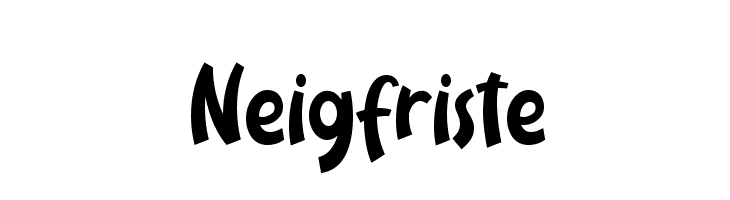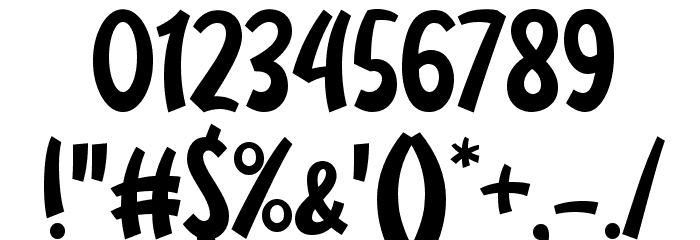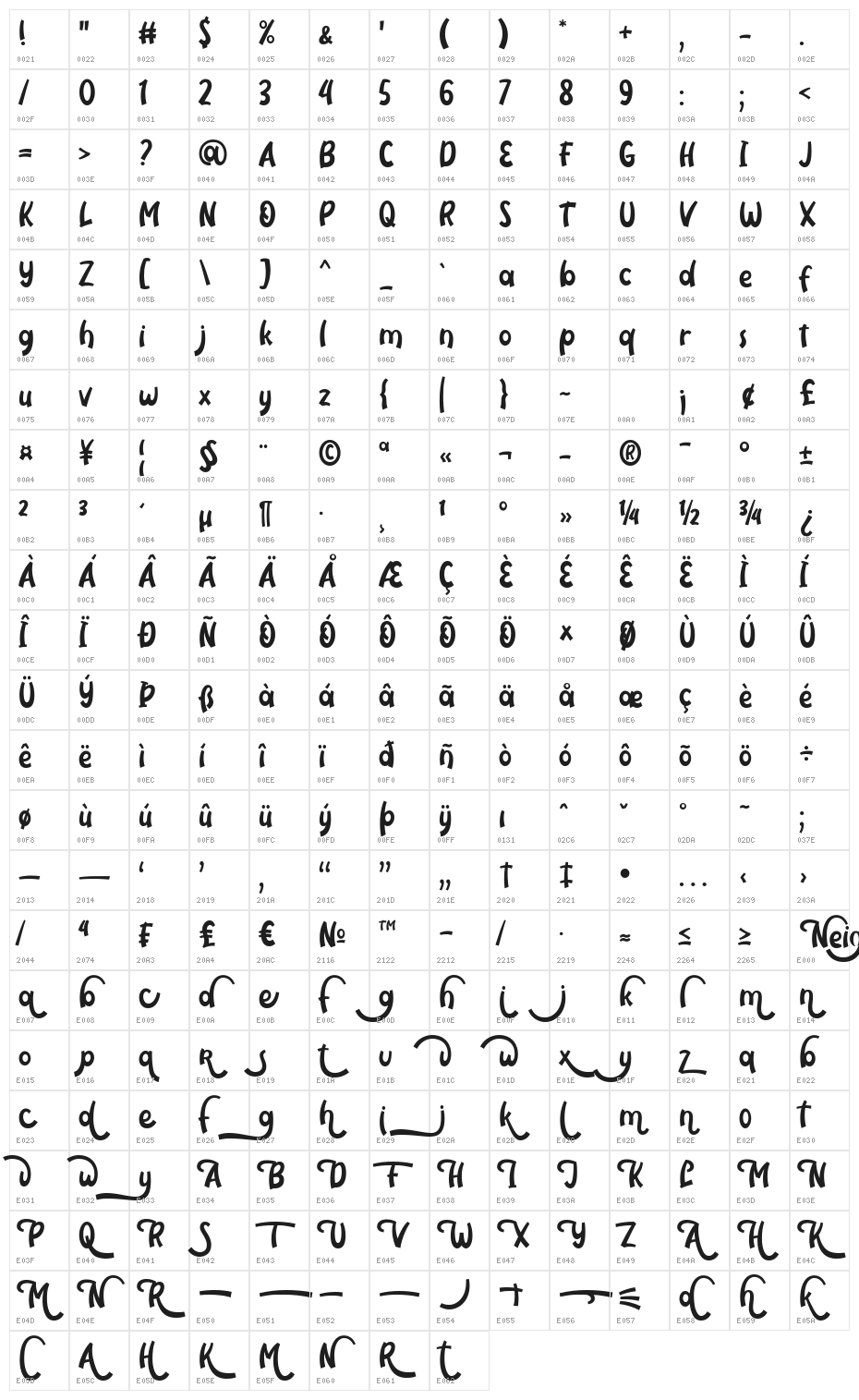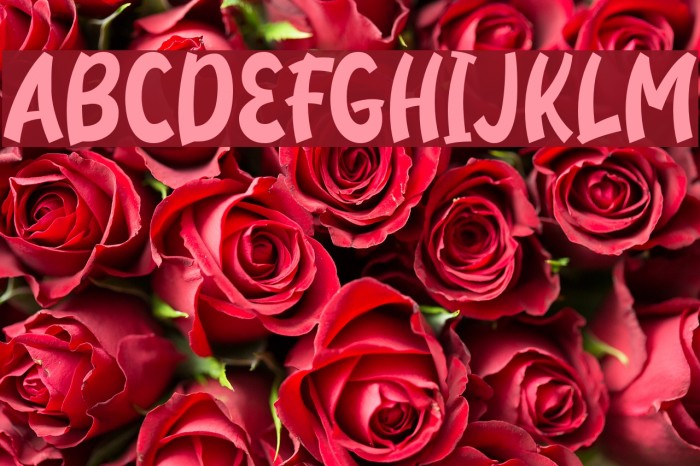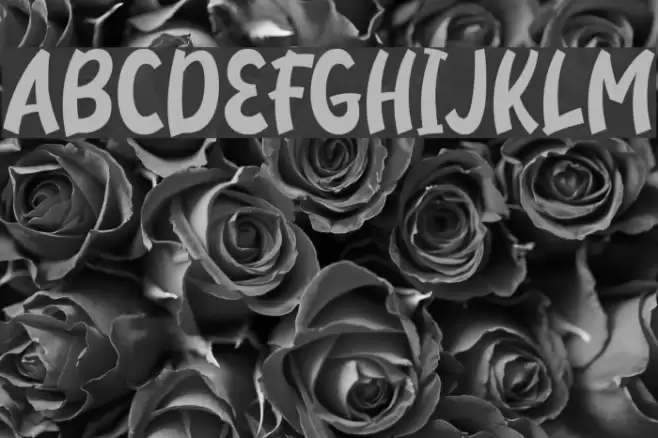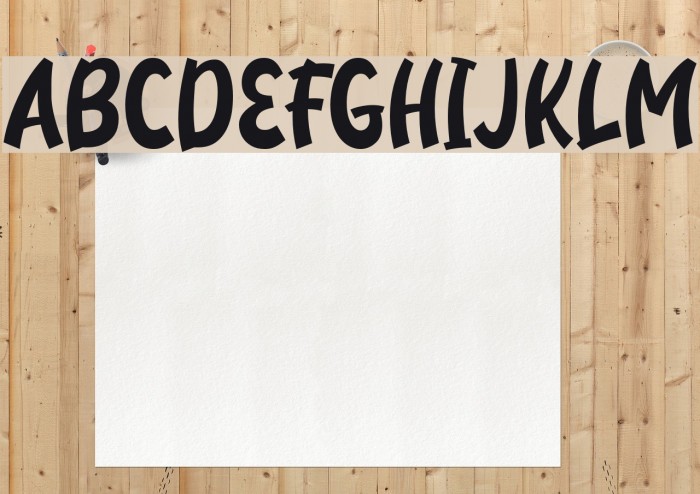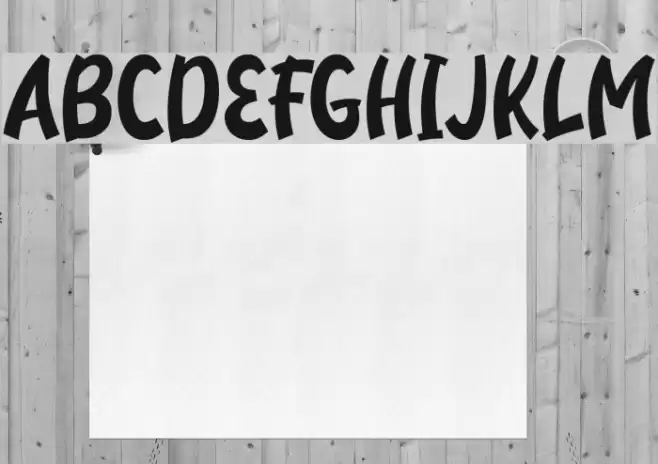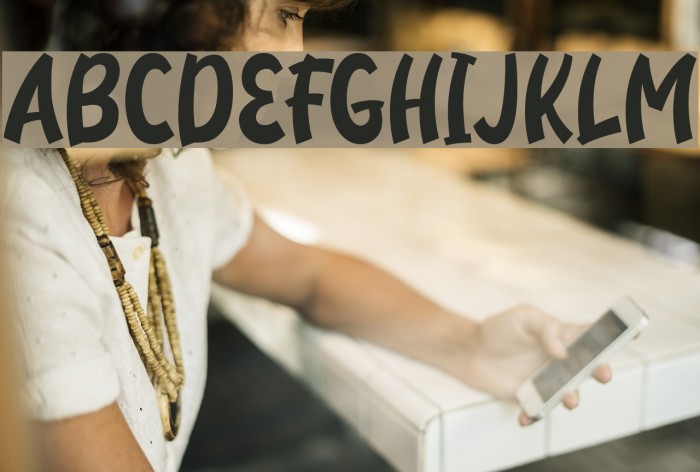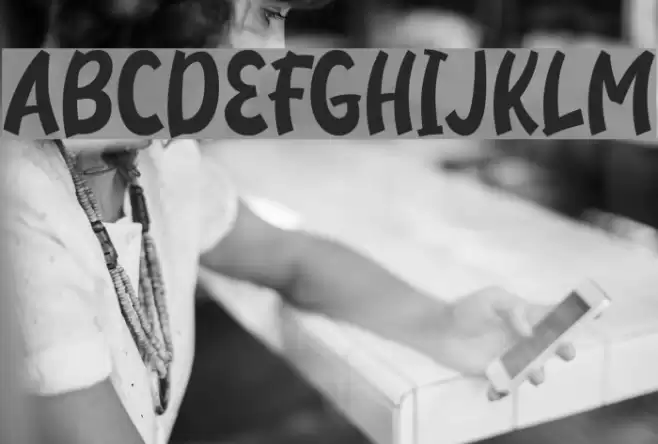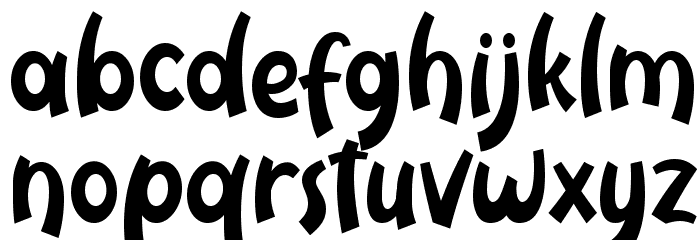
Neigfriste Font
Neigfriste Description
This font features a playful and bold design with a hand-drawn appearance. The characters have a whimsical, slightly irregular shape, giving them a lively and dynamic feel. The uppercase and lowercase letters maintain a consistent style, with rounded edges and a slight tilt, adding to the casual and friendly look. The numbers and special characters follow the same design principles, ensuring a cohesive appearance across all glyphs. The font's unique style makes it suitable for projects that require a fun and informal touch.
| Proposed Projects | Ideal for children's books, playful branding, party invitations, and casual social media graphics. |